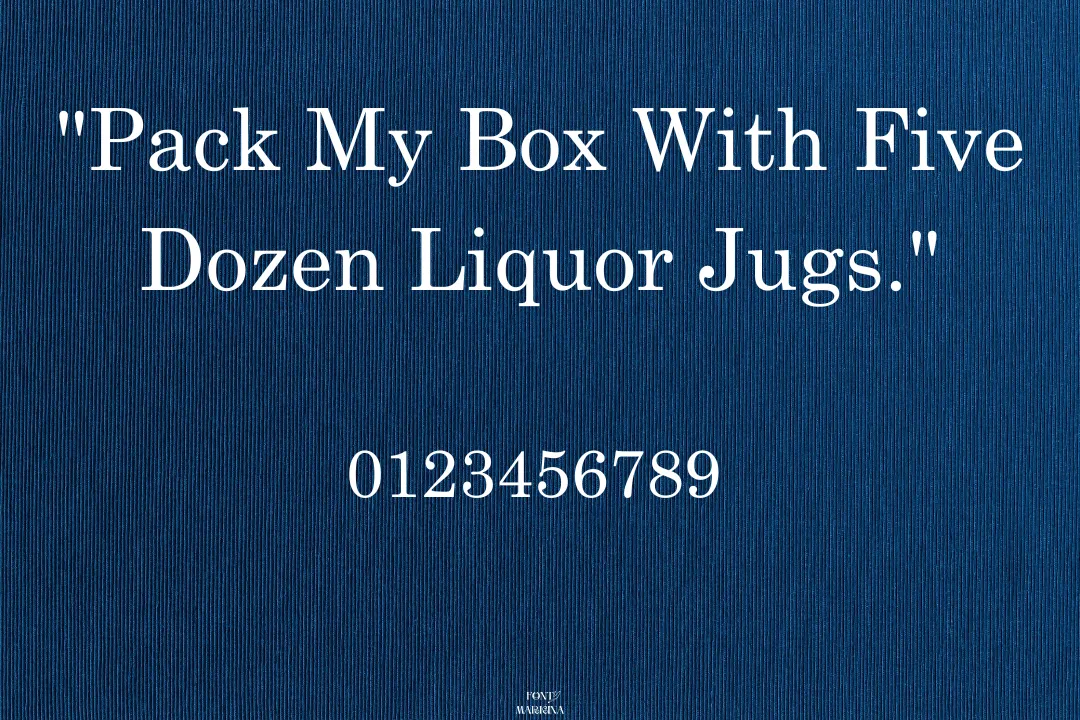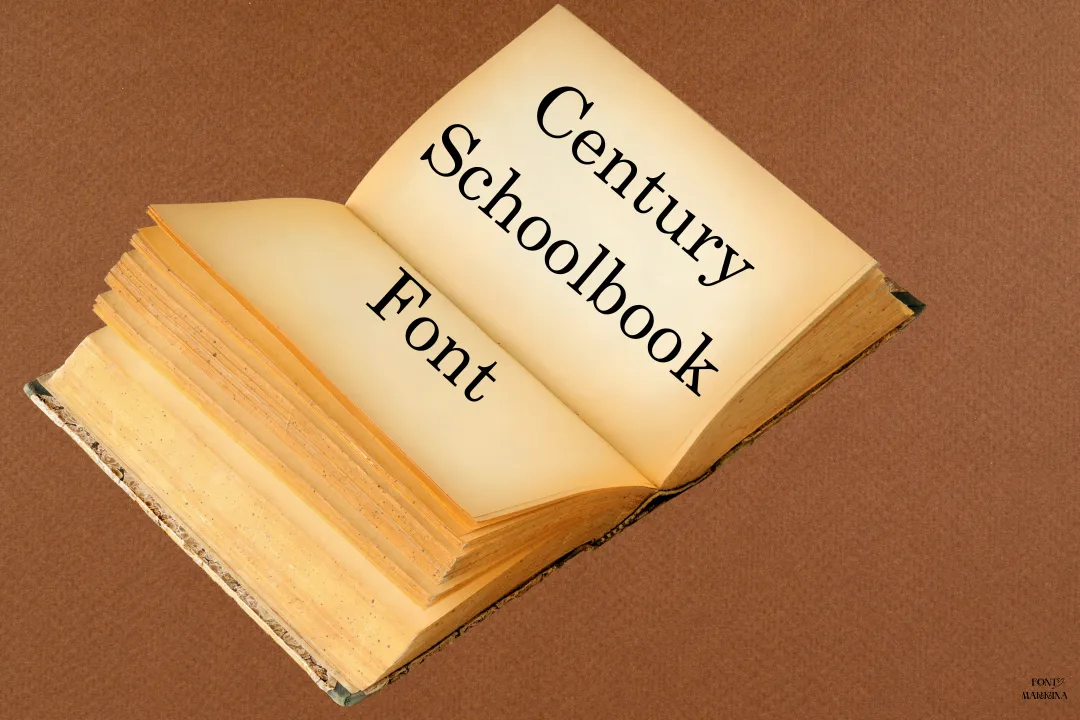
About Century Schoolbook Font
The Century Schoolbook font is a serif typeface that was designed by American typeface designer Morris Fuller Benton in 1918. It is a classic and traditional font that is often used in educational materials and textbooks, hence its name “Schoolbook.” The font was commissioned by the American Type Founders (ATF) company, which was looking to create a font that would be suitable for use in school books.
It is considered to be highly legible and easy to read, making it a popular choice for long-form text. It has a tall x-height, which is the height of the lowercase letters, and wide spacing between the letters, which both contribute to its legibility.
This font is available in both bold and italic variations, which can be used to add emphasis or emphasis to certain parts of the text. The online generator tool of this typeface will convert all your simple structures into the modern texture.
Uses of Century Schoolbook Font
The Century Schoolbook typeface is a popular choice for a wide range of materials, including books, magazines, newspapers, brochures, and websites. It is often used in educational materials such as textbooks and is a common font choice for academic papers. The font is also used in the design of logos, posters, and other marketing materials.
It is widely used in educational materials and textbooks, as well as in other forms of printed media such as newspapers and magazines. The font is known for its clear and legible letterforms, making it well-suited for long passages of text.
The Century Schoolbook font is a serif typeface that is often used for educational materials, such as textbooks and workbooks. It is also commonly used in printed documents and publications, including newspapers and magazines. it is sometimes used in marketing materials, such as brochures and flyers, as well as on websites and in digital documents.
Century Schoolbook Font View
Similars to Century Schoolbook Font
Some similar fonts to Century Schoolbook include:
Goudy Old Style Font
This font is under the category of a serif font and was designed by Frederic Goudy in 1915, which also features clear and legible letterforms and is often used in educational materials and books.
Adobe Garamond Font
It is a classic serif font designed by Claude Garamond in the 16th century, which has been digitized and updated for use in modern digital media.
Baskerville Font
This font is a serif font designed by John Baskerville in 1757, which is known for its elegant and refined letterforms and is often used in formal and scholarly documents.
Palatino Font
It was designed by Hermann Zapf in 1948, which is similar to Century Schoolbook, also designed for legibility and readability.
Some other similar fonts to this typeface is;
- Bell MT Font
- Minion Pro Font
- Playfair Display Font
- Bembo Font
- Times New Roman Font
- Adobe Garamond Pro Font
- Sabon Next Font
- Imprint MT Shadow Font
- New Century Schoolbook typeface
- Perpetua Font
- Taviraj Font
- Rockwell Font
- Times Ten Font
Is Century Schoolbook font free?
It is not typically considered a free font and would typically need to be licensed for commercial use. It is free for personal tasks.
Why is Century Schoolbook font considered legible and readable?
The font is known for its legibility and readability due to its clear and distinct letterforms, making it well-suited for long-form text.
Can I use Century Schoolbook font for my book cover design?
It is a good font for book cover design as it is legible and readable. But you should consider other factors such as design aesthetics, and book genre before finalizing the font.